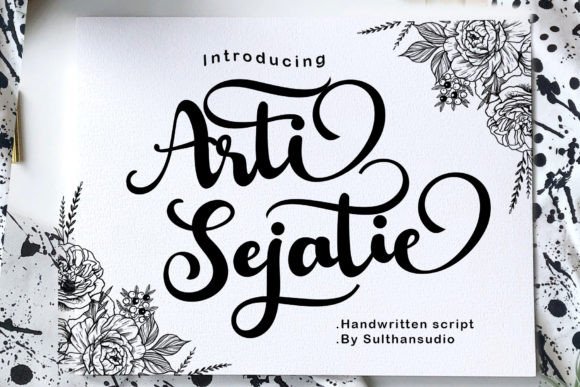
Introducing the Arti Sejati Font, the ultimate choice for creating captivating food logos! Developed by Sulthan Studio, this stunning bold script font is here to elevate your designs with its elegance and sophistication.
With its bold and expressive strokes, Arti Sejati instantly grabs attention and leaves a lasting impression. Whether you're designing wedding invitations, crafting logos, or working on branding materials, this font will infuse charm and personality into your creations.
Not only does Arti Sejati exude a touch of class, but it also offers versatility like no other. From formal to casual designs, this font effortlessly adapts to any style, making it perfect for a wide range of applications.
Imagine the impact of this font on your food logos! It will effortlessly convey the deliciousness and allure of your culinary creations, enticing customers to indulge in your offerings. The bold and expressive nature of Arti Sejati will make your food logos stand out from the crowd, leaving a memorable impression on potential customers.
Crafted with attention to detail, Arti Sejati is a true masterpiece that embodies the essence of fine dining. Indulge in its captivating curves and exquisite details, and watch as your designs come to life with elegance and sophistication.